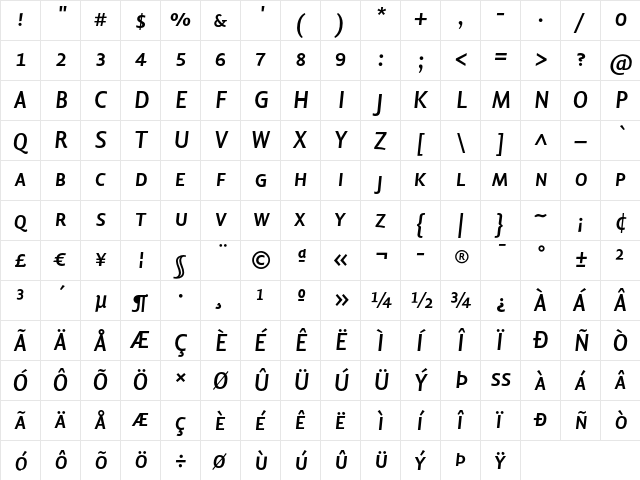
Lisboa SC Bold Italic
Design Context for Lisboa SC Typeface
Lisboa SC offers clean, dependable letterforms without strong stylistic allegiance, making it a practical choice for designers who need flexibility. The dynamic lean of this cut emphasises speed and emphasis in any layout. Its bold stroke weight gives it real presence on the page.
Pro Tip: Use Lisboa SC for emphasis, pull quotes, and subheadings where its slanted energy can add rhythm to the layout.